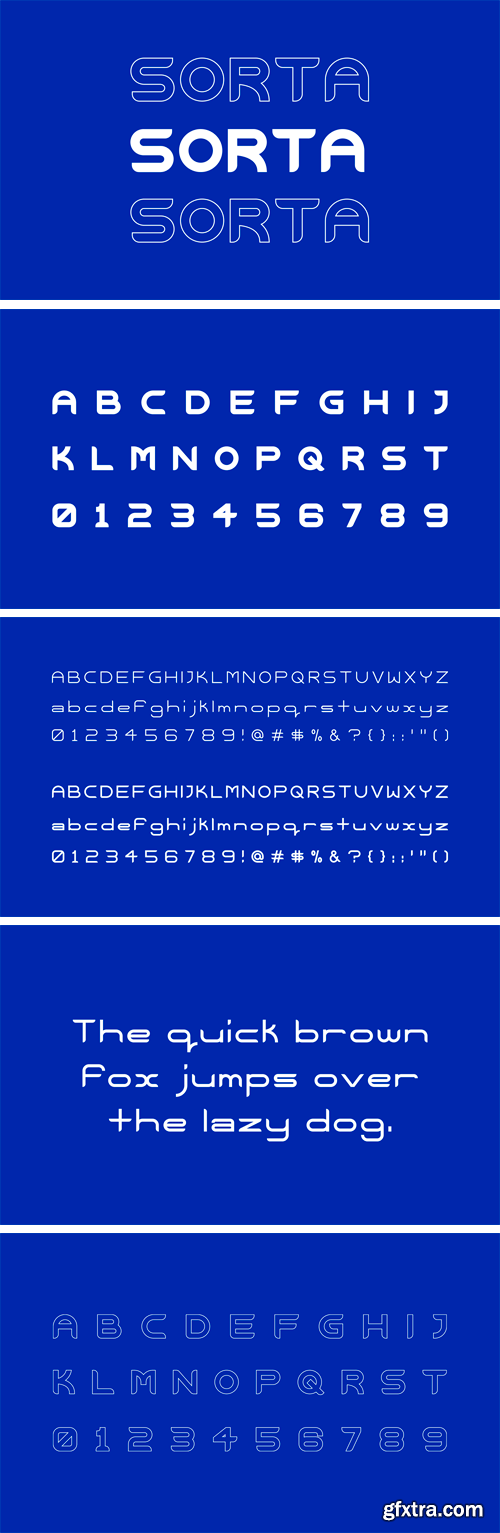
sorta 字体家族
Sorta Font Family
Sorta is a sans serif font family with modern and creative look designed for Sorta Brilliant. It comes with Light, Regular and Bold weight, contains uppercase and lowercase letters, numbers and symbols. This font perfectly suits for branding, headlines and text blocks, posters, covers, prints and much more.